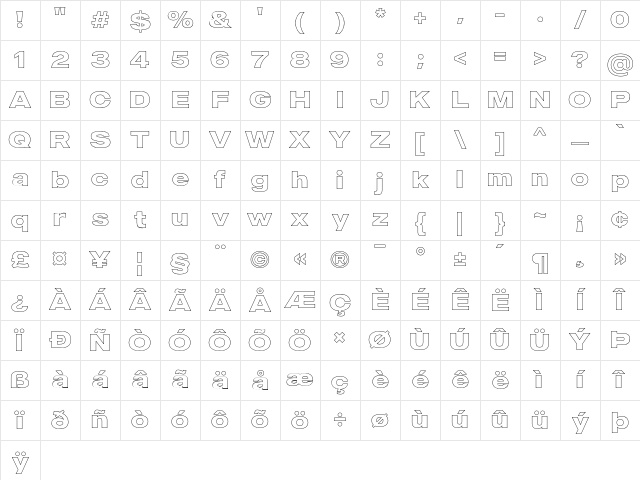
MADE Outer Sans Outline Bold
Foundry: MadeType
Designer: MadeType
Design Context for MADE Outer Sans Outline
MADE Outer Sans Outline is built around its visual character rather than neutral utility - its distinctive forms are designed to make an impression at display sizes. Its bold stroke weight gives it real presence on the page.
Font Pairing: Pair with a clean neutral sans-serif for body copy to let MADE Outer Sans Outline's character lead without overwhelming the composition.
Pro Tip: Use MADE Outer Sans Outline exclusively at display sizes - it was designed to be seen, not read at length. Let a neutral companion handle body copy.